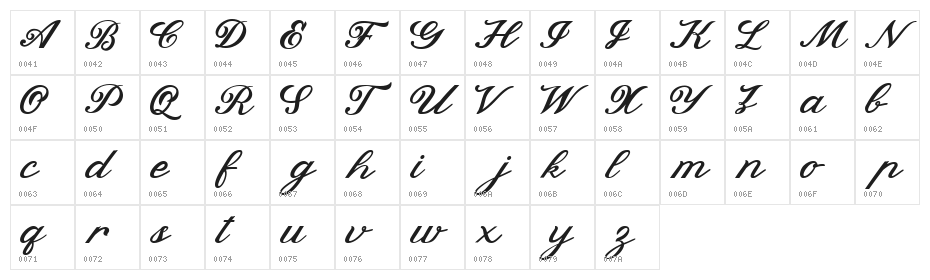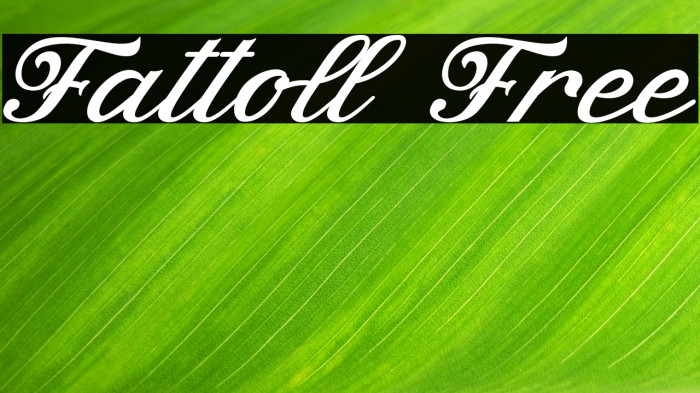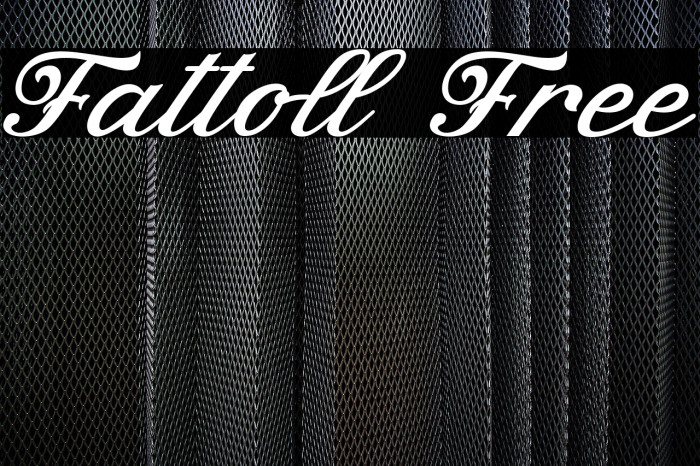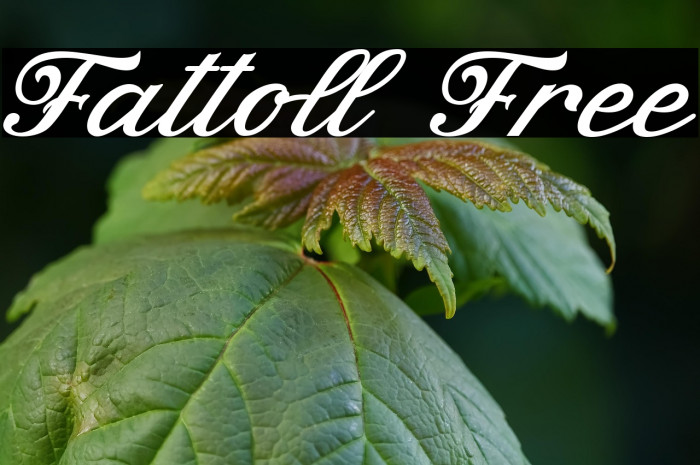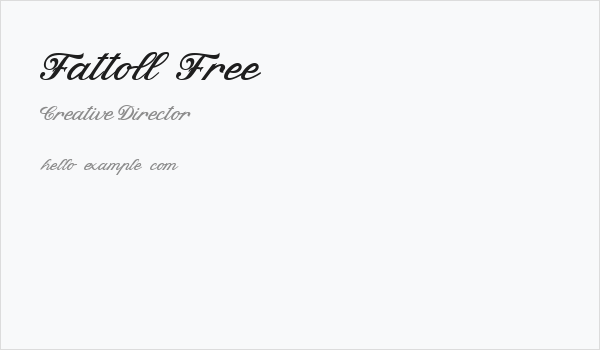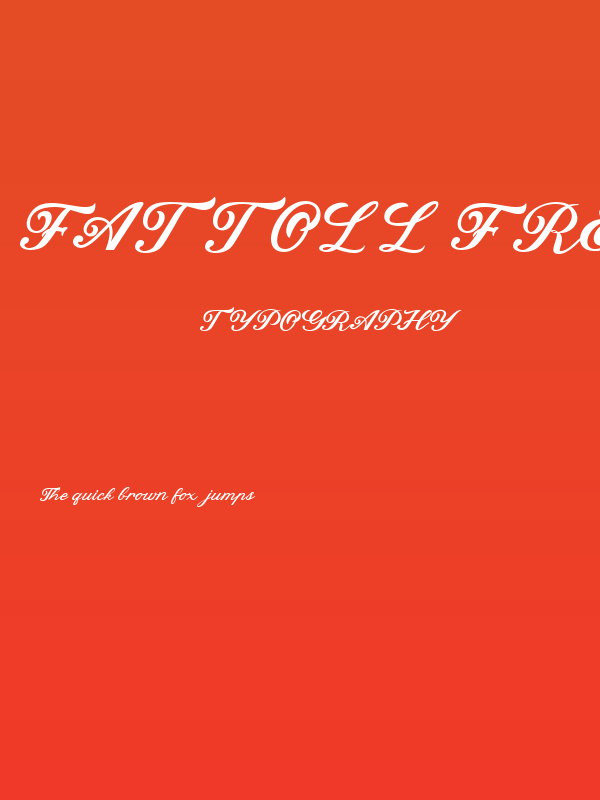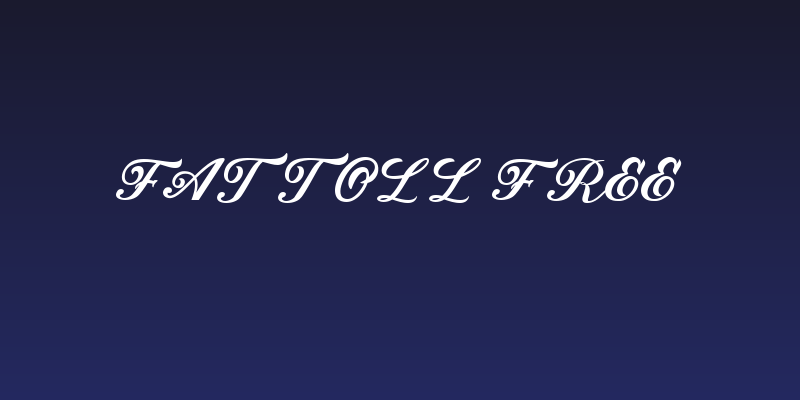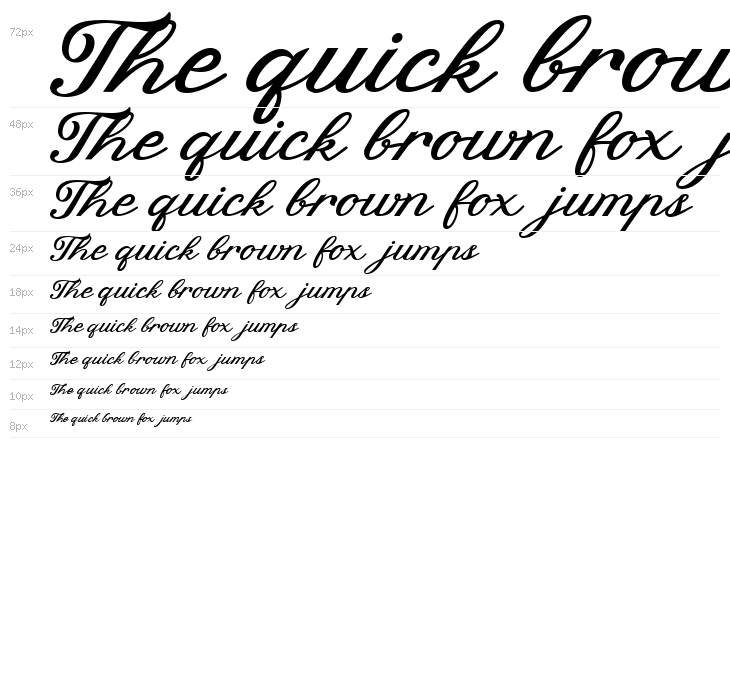
Fattoll Free Font
Fattoll Free Description
This font exudes elegance and sophistication with its flowing script style. The characters are intricately designed with smooth curves and flourishes, giving it a classic and timeless appeal. The uppercase letters are particularly ornate, featuring elaborate swashes that enhance their decorative quality. The lowercase letters maintain a consistent flow, making them ideal for creating a harmonious and visually pleasing text. The font's overall appearance is both graceful and bold, making it suitable for a variety of formal and creative applications.